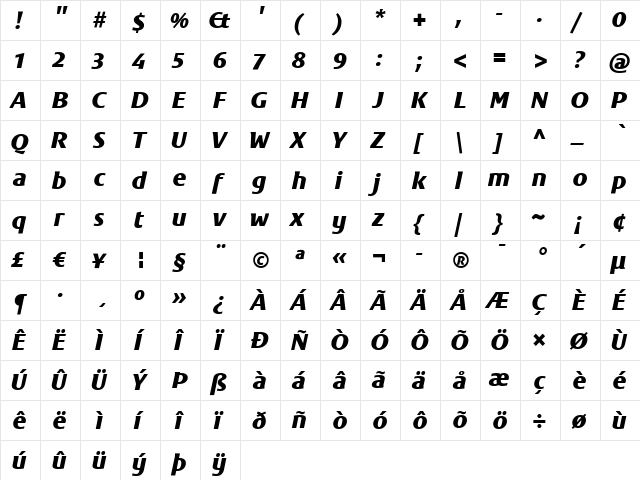
Sitaline Bold Italic Font Preview
Design Context for Sitaline Typeface
Sitaline takes a measured approach to typography — its balanced proportions and neutral character make it a reliable workhorse for both digital and print work. Its italic angle brings a sense of urgency and motion to the letterforms. The heavy weight commands attention and anchors typographic hierarchies.
Pro Tip: Try Sitaline for annotation and caption copy alongside an upright companion — the contrast in angle creates a dynamic but ordered typographic system.